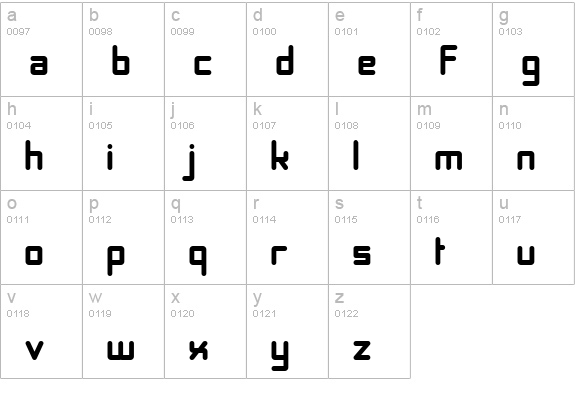
11S01 Black Tuesday is a maximum-weight, dramatic variant in the 11S01 typeface family \xE2\x80\x94 well suited to maximum-impact headlines, posters, and packaging.
11S01 Black Tuesday font is a modern, sleek typeface that exudes elegance and sophistication. With its bold, clean lines and sharp angles, this font is perfect for creating eye-catching designs that demand attention. Whether you're designing a poster, logo, or website, 11S01 Black Tuesday font will add a touch of sophistication to your project. The best part? 11S01 Black Tuesday font is completely free to download at FontsMarket.com. That's right, you can access this stunning font without spending a dime. So why wait? Download 11S01 Black Tuesday font today and take your designs to the next level.